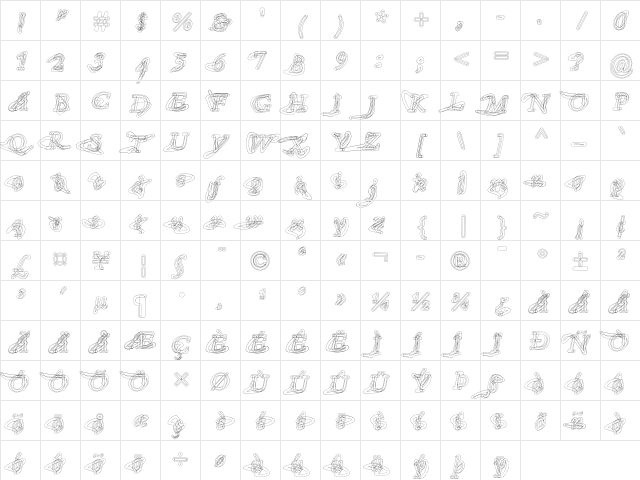
F2FHaakonsen LT Std Regular
Designer: Stefan Hauser
Design Context for F2FHaakonsen LT Std
F2FHaakonsen LT Std is a composed and adaptable typeface that performs quietly and consistently across a wide range of design contexts. Its slender proportions lend an understated elegance to any composition.